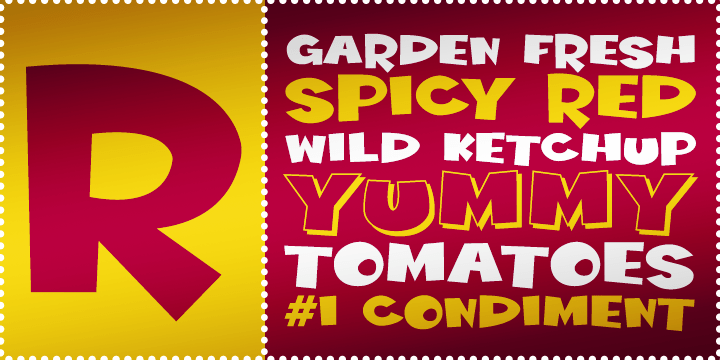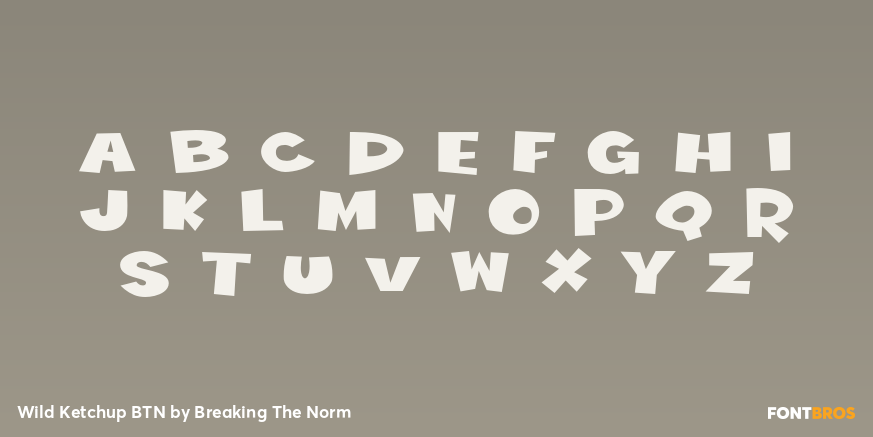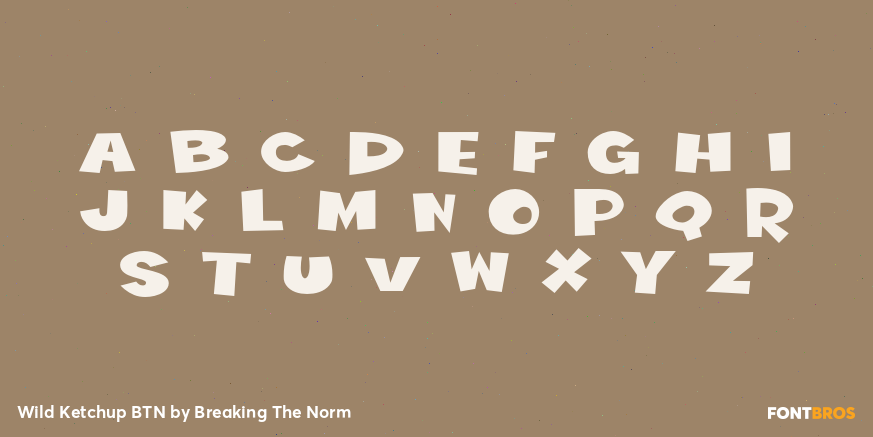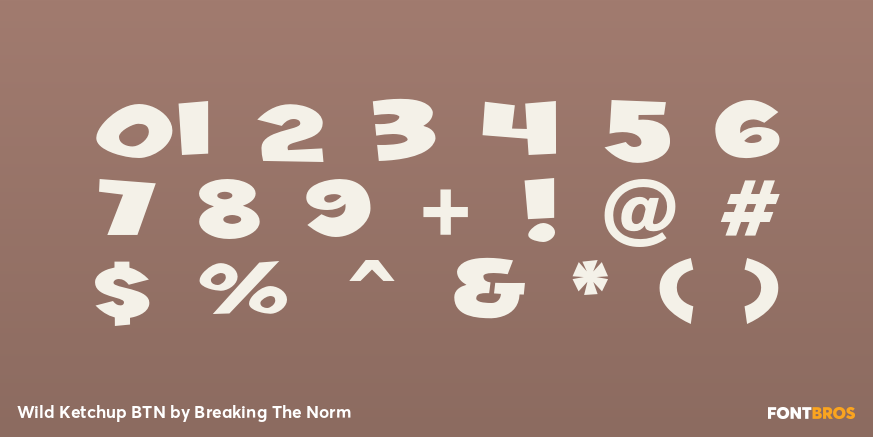
Wild Ketchup BTN
Font Family by Breaking The Norm
Wild Ketchup BTN is a bold, playful display typeface with a lively, flavor-packed personality. Designed to make a strong visual impression, it brings an energetic and slightly mischievous feel to posters, packaging, food branding, kids’ graphics, signage, and fun headline work. The core Regular style delivers a chunky, easy-to-read display voice, while the Outline Shadow companion adds extra retro punch and dimensional impact. As the fraternal twin to Hot Mustard BTN, Wild Ketchup BTN is a natural fit for designs that want to feel bold, spirited, and full of fun.
Wild Ketchup BTN Outline Shadow
Wild Ketchup BTN Regular